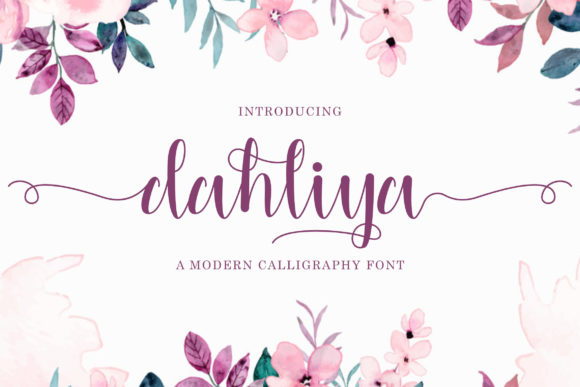
Adorn your designs with the captivating allure of Dahliya! Unveil a world where handwritten elegance dances with digital precision, leaving an unforgettable mark on your visual masterpieces. Its delicate strokes and sweeping curves ignite emotions, evoking a sense of timeless beauty and sophistication.
Crafted by the masterful hands of JDStudio, Dahliya gracefully adorns display posters, instilling a touch of enchantment into every word. Its PUA-encoded magic grants you effortless access to an array of captivating glyphs and ligatures, empowering you to unleash your creativity and weave enchanting tales through typography.
Elevate your designs to new heights with Dahliya's undeniable charm. Its exquisite curves and sinuous lines will captivate your audience, leaving them spellbound by the sheer brilliance of your creations. Let Dahliya be your guiding light, illuminating your design path with its enchanting glow. It's not just a font; it's an invitation to embark on an artistic odyssey that will leave your designs forever transformed.